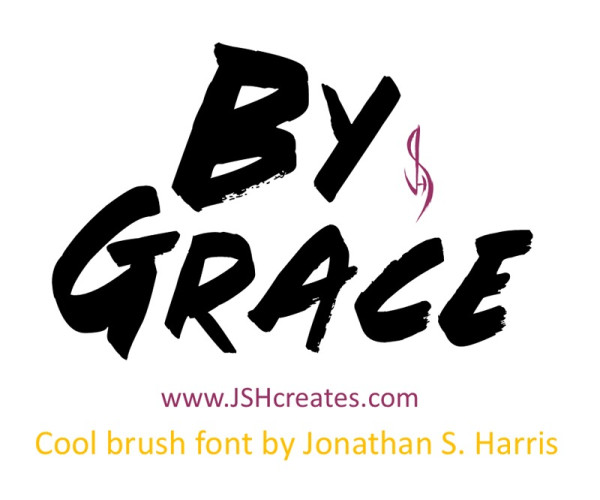
By Grace Font
By Grace Font is this cool hand-written brush font. “By Grace”. Perfect for advertising purposes, including invitation cards, book covers, shirts, posters, logos and much more!